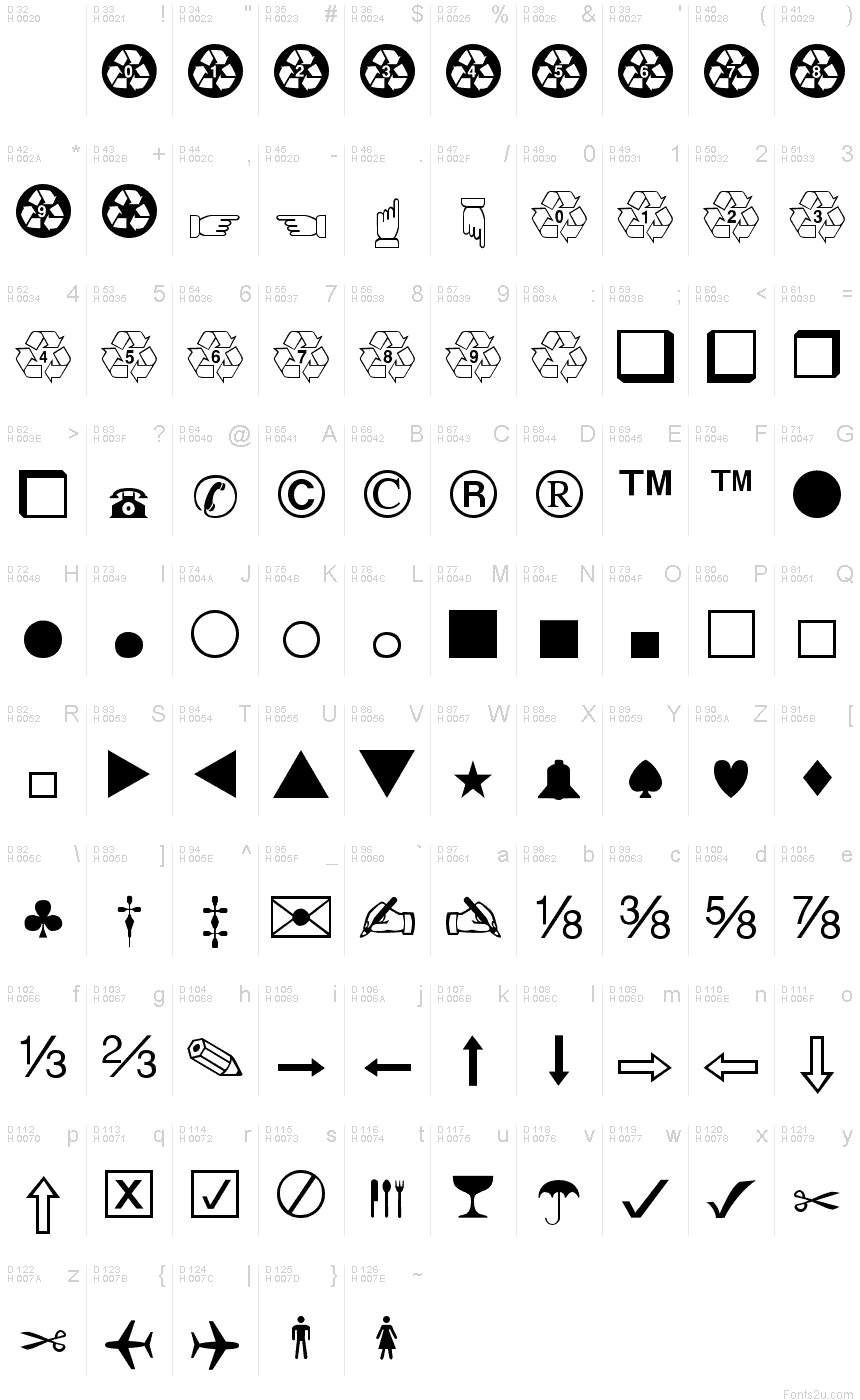
Expert Dingbats Normal
Expert Dingbats font by Elfring Soft Fonts is a free dingbat typeface that turns the Expert-Dingbats family into a practical little toolbox. Its icons feel sturdy and straightforward—solid black silhouettes of pens, arrows, utensils, umbrellas, and more—designed to read clearly even when shrunk down. The shapes are clean and un-fussy, so they drop into layouts without visual noise or fussy detail.
This free font works beautifully when you need quick, universally understood symbols for instruction sheets, restaurant menus, packaging, worksheets, infographics, or office signage. Using Expert Dingbats Normal means you can keep everything in a single font workflow instead of juggling separate image files. Try pairing it with a neutral sans serif for text and set the dingbats a touch larger than the body copy so each icon pops with unmistakable clarity.